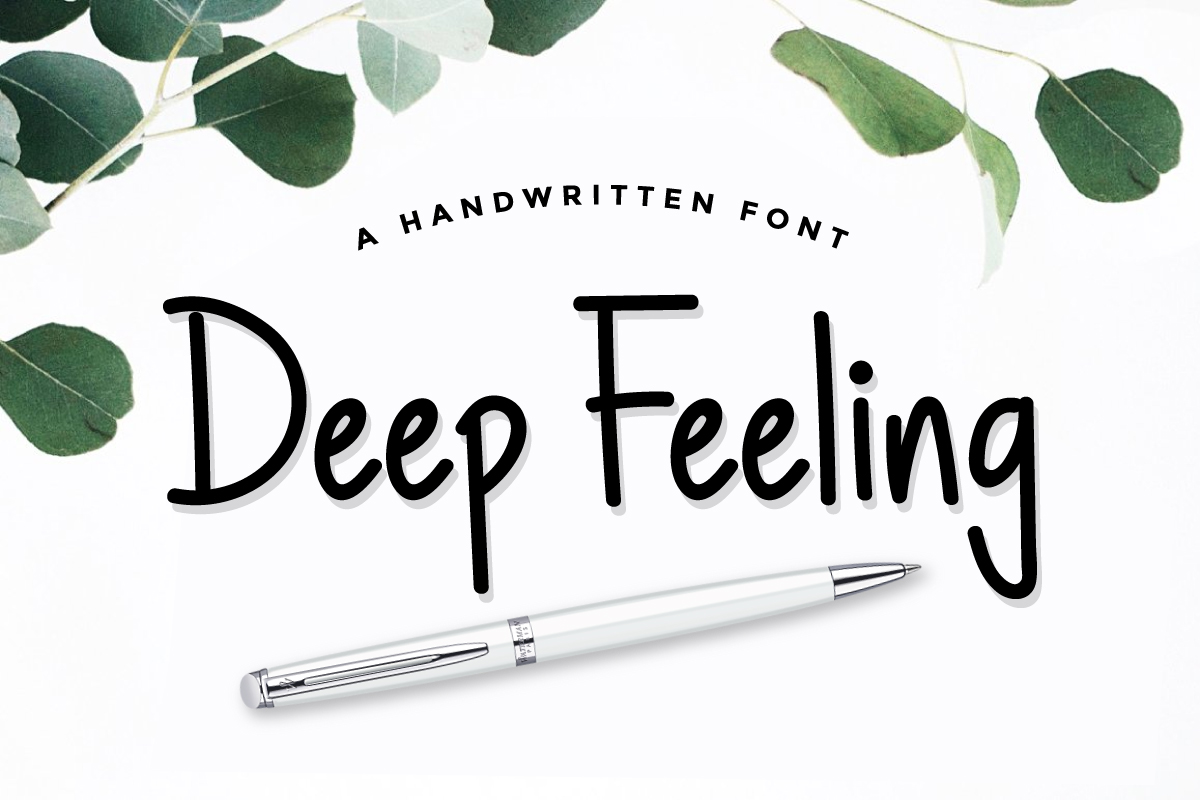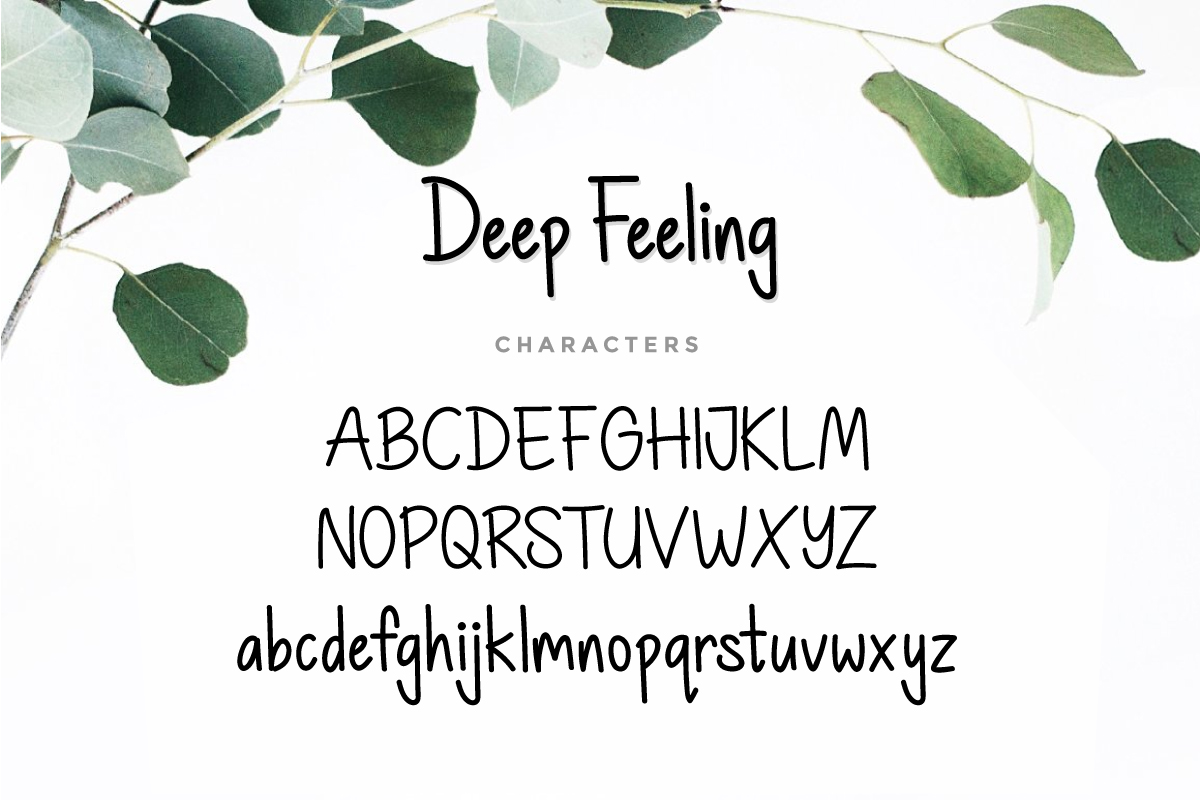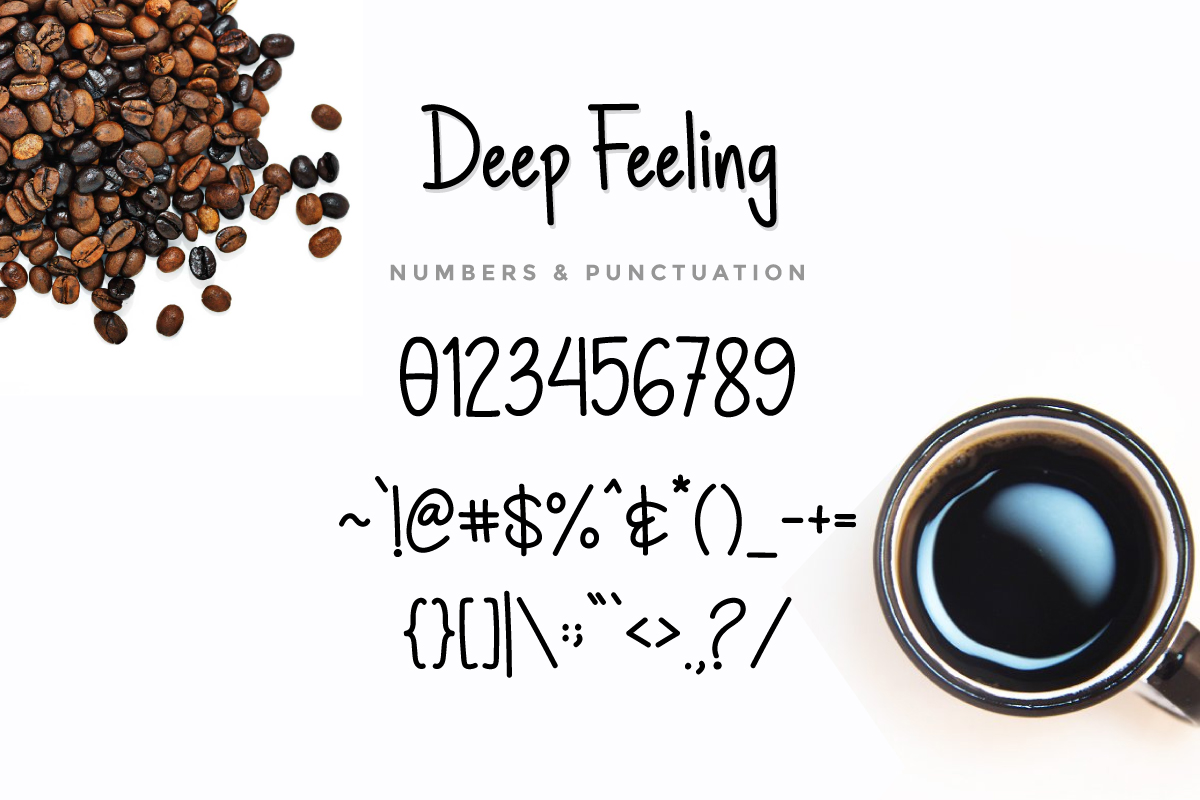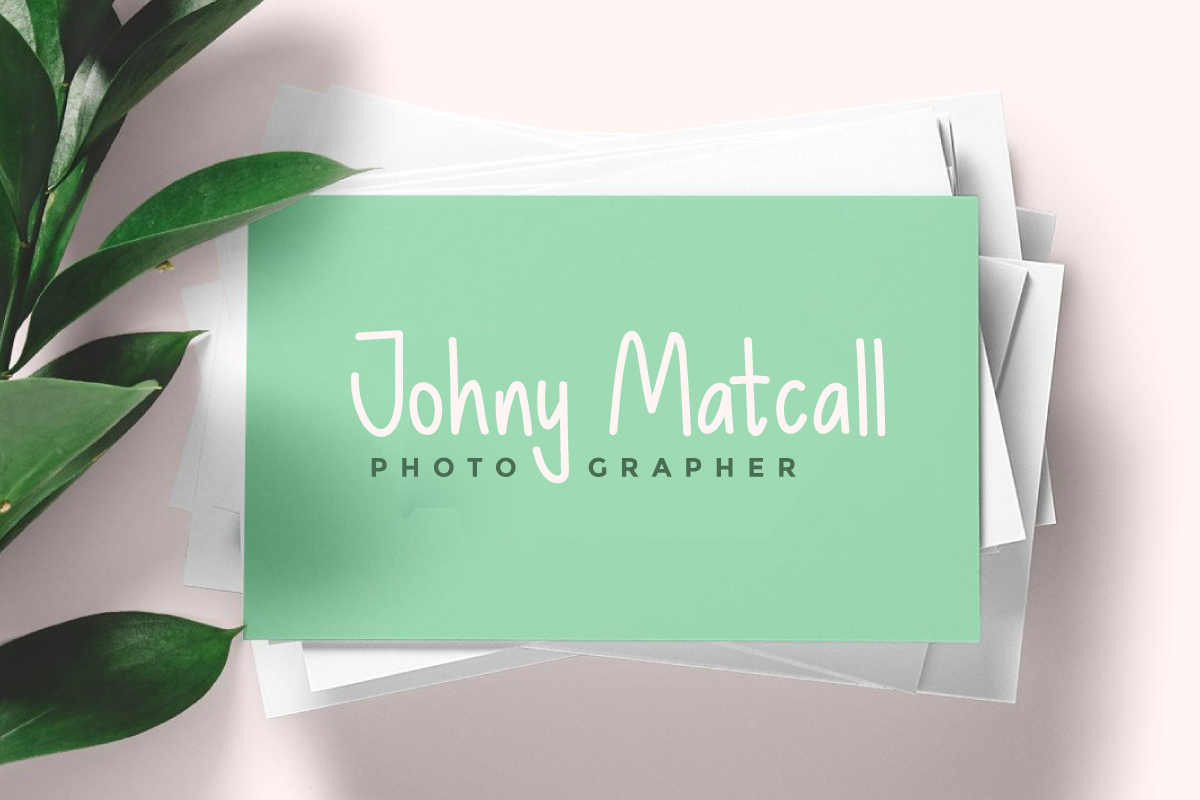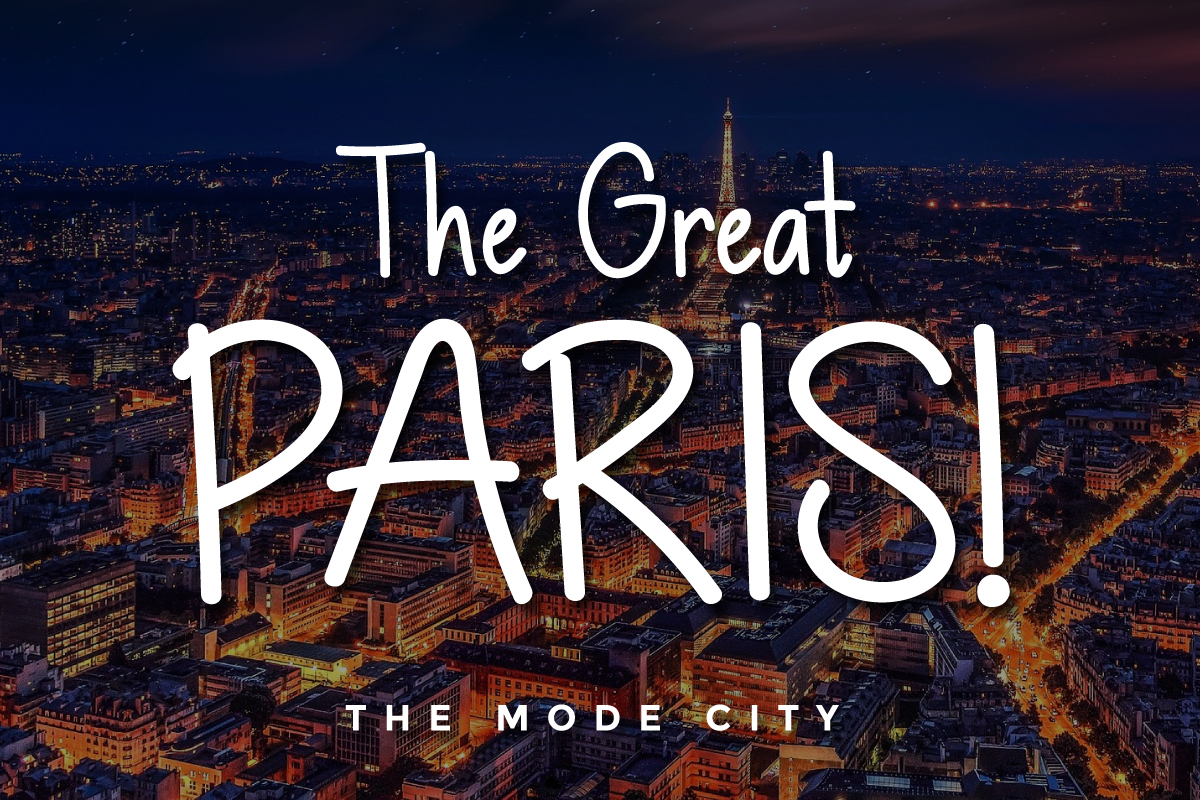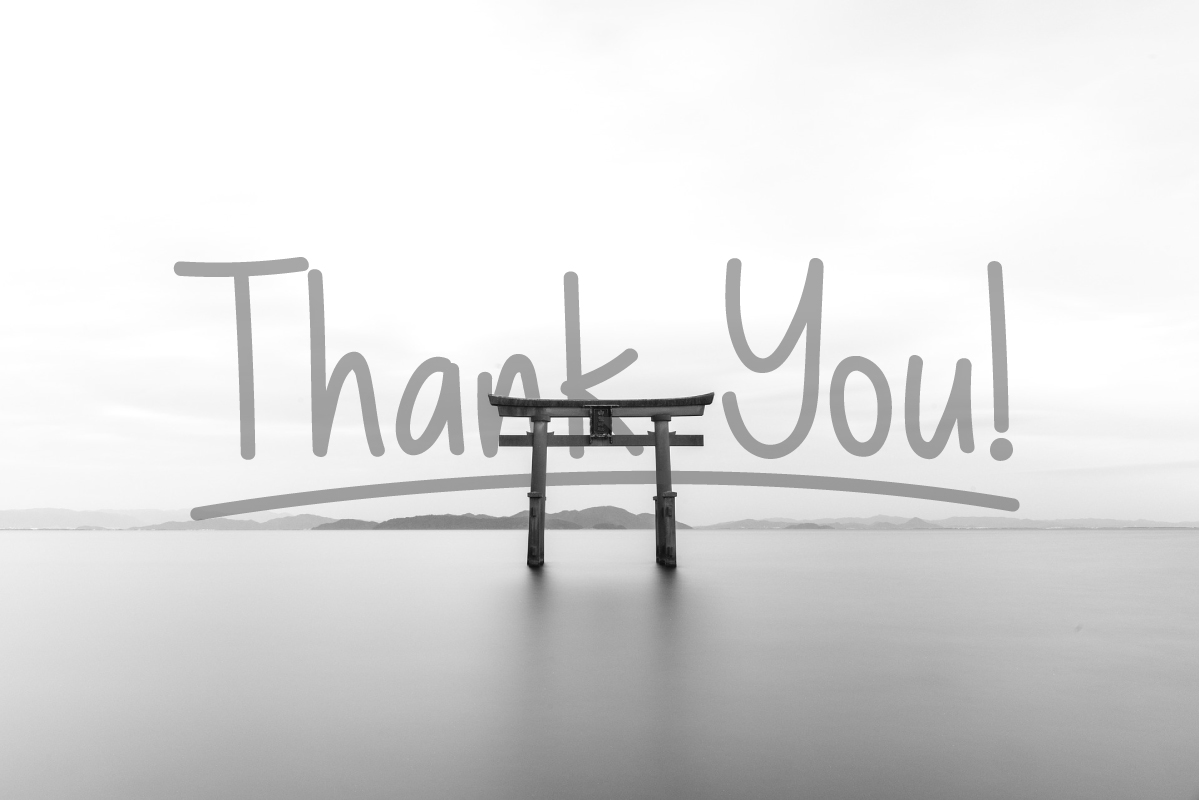
Deep Feeling Font
About Deep Feeling Font
Introducing Deep Feeling Typeface – a handwritten font that is very fresh and uniquely styled. With rounded edges, this is a friendly san serif font that is remarkably legible.